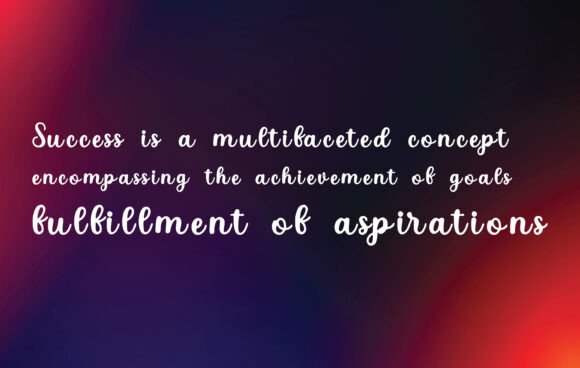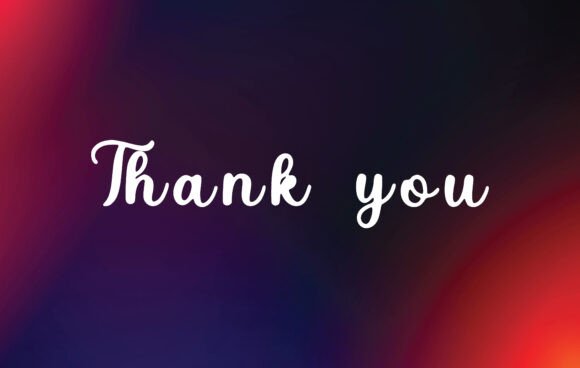
Introduction to Noah Font
Remember that moment when you’re working on a creative project and you need the perfect font to bring it all together? The one that makes your design stand out, that gives it a personal touch, and that elevates your entire brand? For many designers, that moment is often a search for the perfect handwritten font.
Enter Noah Font, a beautiful and high-quality handwritten font that’s sure to take your creative ideas to the next level. With its elegant and refined design, Noah Font is the perfect choice for creating eye-catching logos, branding, and quotes that will leave a lasting impression on your audience.
Noah Font
- Features a unique, modern design with a clean and minimalist aesthetic
- Perfect for use in digital and print applications, including logos, graphics, and typography
- Resolution-independent and scalable for use in various sizes and resolutions
Honest Review: Noah Font
I recently stumbled upon the Noah Font, and I must say, it’s a game-changer for any creative project. The high-quality design and transparent background make it a versatile resource for designers.
- ✨ The Noah Font comes in a range of styles, from modern to vintage, making it perfect for a variety of design projects.
- ✨ The font is highly legible, even at smaller sizes, which is a must for any design resource.
- ✨ The transparent background allows for seamless integration with other design elements.
- ⚠️ The Noah Font is a free download, which means it may not be as polished as some paid fonts.
- ⚠️ Some users may find the font a bit too generic, which could limit its creative potential.
Overall, I’m impressed with the Noah Font. It’s a solid design resource that’s perfect for designers on a budget or those who want a high-quality font without breaking the bank. If you’re looking for a reliable font for your next creative project, I’d definitely recommend giving the Noah Font a try.
Noah Font
Tips for Getting the Most Out of Noah Font
To get the most out of Noah Font, be sure to use it in conjunction with other high-quality design elements. This will help to create a cohesive and professional-looking design. Additionally, experiment with different font sizes and styles to add visual interest to your design.
Noah Font is perfect for a variety of creative projects, including logos, graphics, and presentations. It can also be used to create eye-catching headings and titles, making it a valuable resource for designers and non-designers alike.
Playfair Display is a beautiful, high-quality font designed for use in creative projects that require elegance and sophistication. It features a transparent background and is suitable for use in headings, titles, and body text. When to use: luxury brands, high-end designs, and creative projects that require a touch of sophistication. Compared to Noah Font, Playfair Display has a more luxurious and refined feel, making it a great choice for projects that require a high level of sophistication.